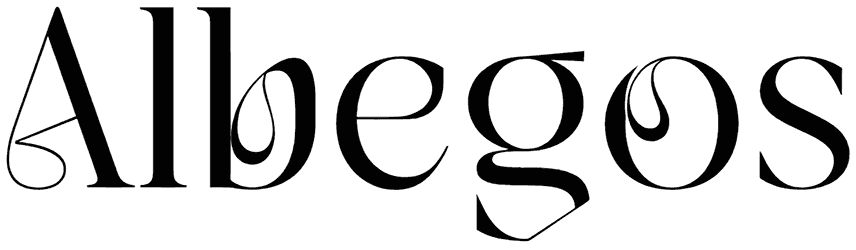
Albegos Font
Albegos shines like a beautiful gown in the world of typography. With its subtle and distinctive serifs, this serif font has class and sophistication, making it a popular choice for everything from wedding invitations to fashion magazines.
Despite its serious appearance, this fashion font can effectively convey meaning and emotions. Whether you want to create a sense of tradition and heritage or bring a sense of elegance and luxury, Albegos font can help you achieve your desired effect.